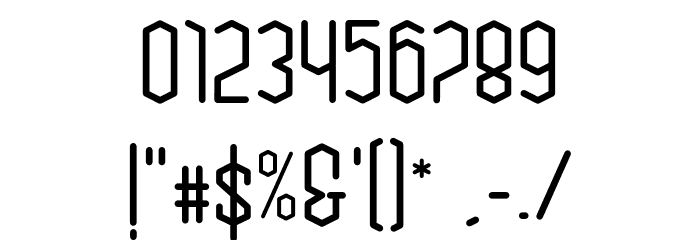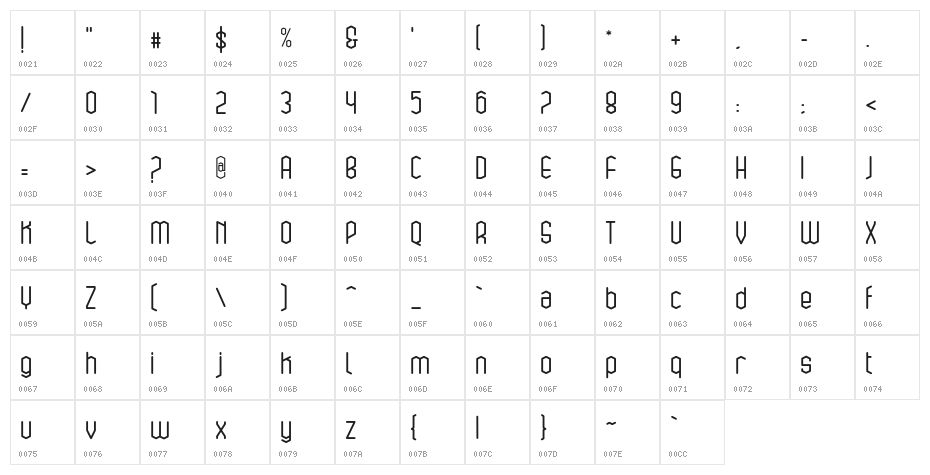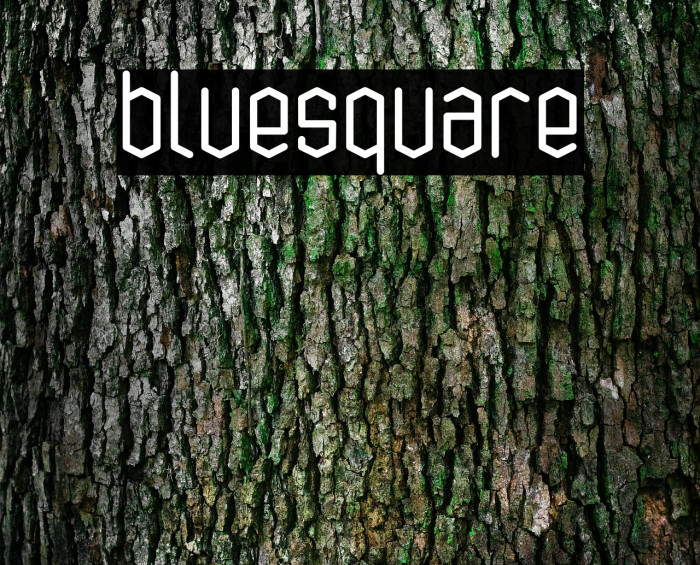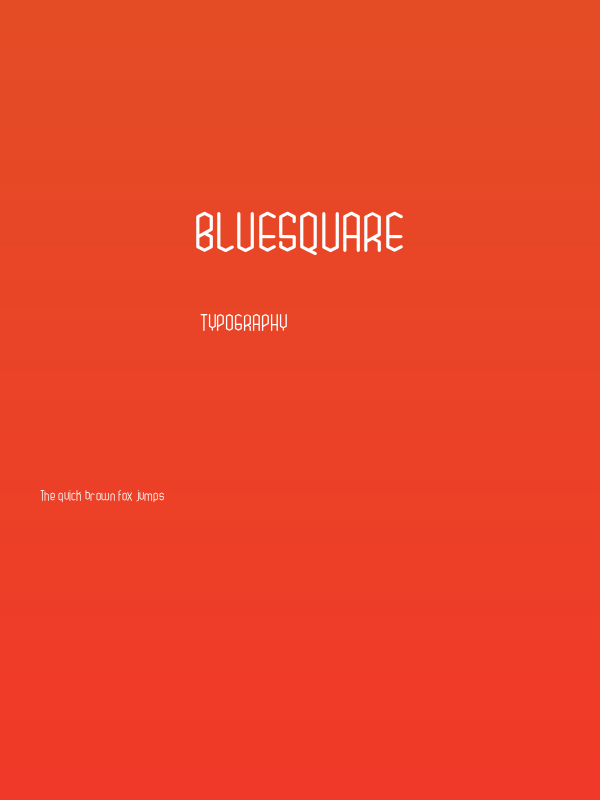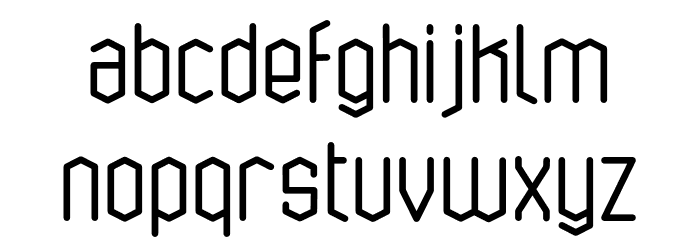
bluesquare Font
bluesquare Description
This font features a geometric and modern design with a distinct hexagonal motif. The characters are constructed with straight lines and sharp angles, giving it a futuristic and digital appearance. The uppercase and lowercase letters maintain a consistent style, with uniform stroke widths and a clean, minimalist aesthetic. The numerals and special characters follow the same design principles, ensuring a cohesive look across all glyphs. This font is highly legible and stands out due to its unique structure, making it suitable for various creative applications.